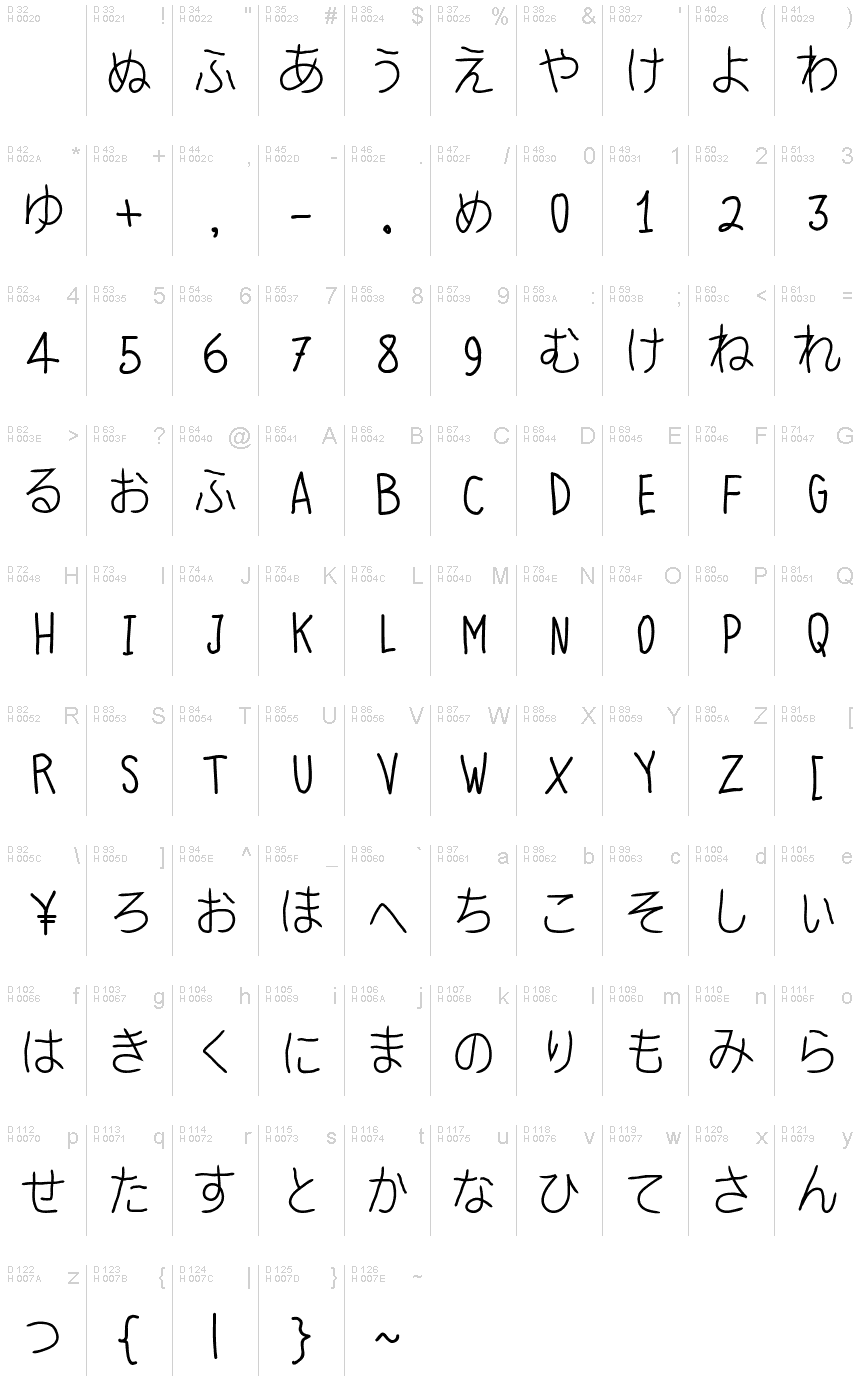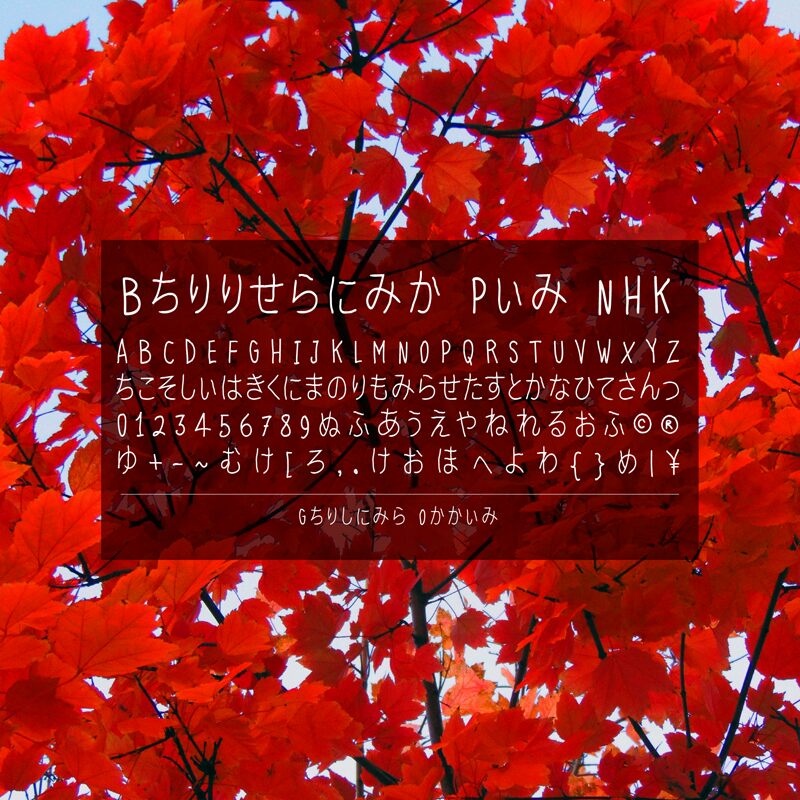
Ballpoint Pen NHK
Ballpoint Pen NHK, designed by Galdino Otten, transports you to the captivating world of Japanese calligraphy. Its semi-light weight adds an elegant touch to your projects, making it an ideal choice for a variety of creative endeavors.
This foreign font type brings a unique flair that is perfect for branding and logo designs, adding an authentic touch to your company's identity. Additionally, Ballpoint Pen NHK suits beautifully for creating eye-catching headlines in magazines or posters, immersing your readers in the artistry of Japanese culture.
Let this exquisite font style captivate and inspire your next project.